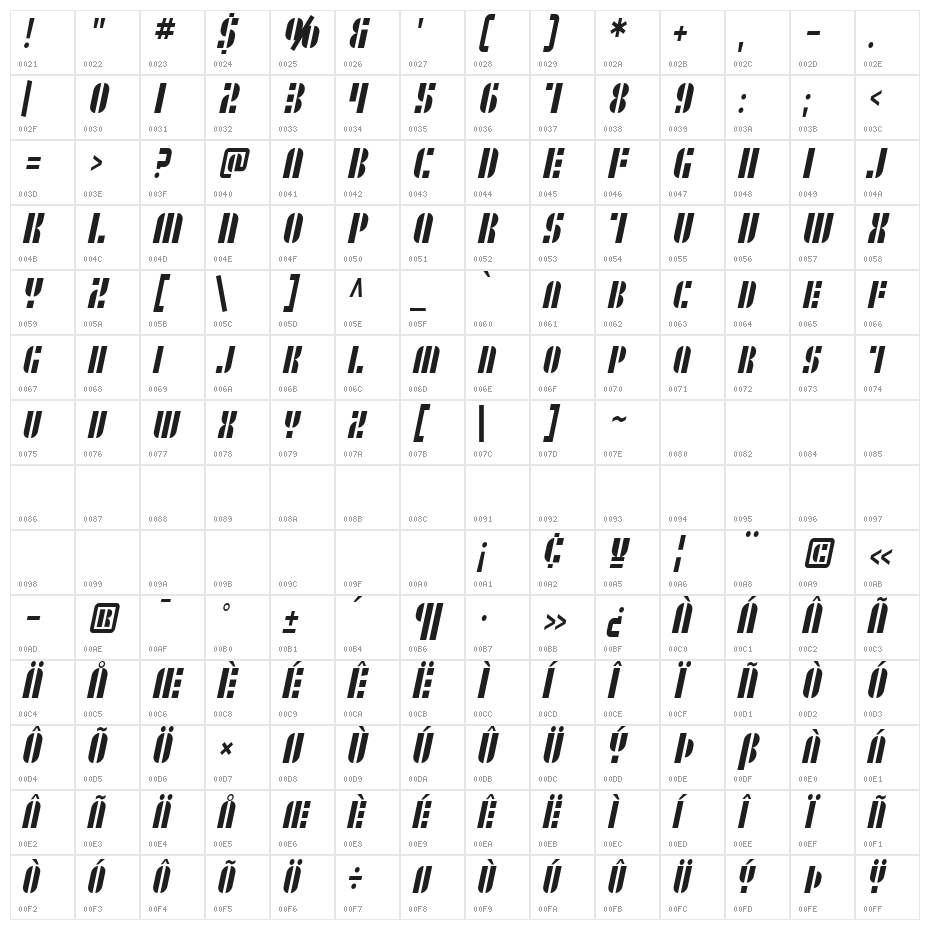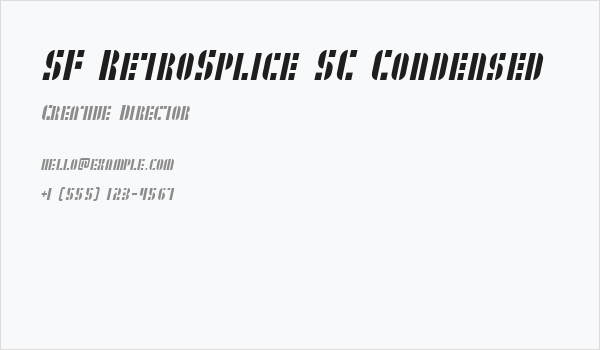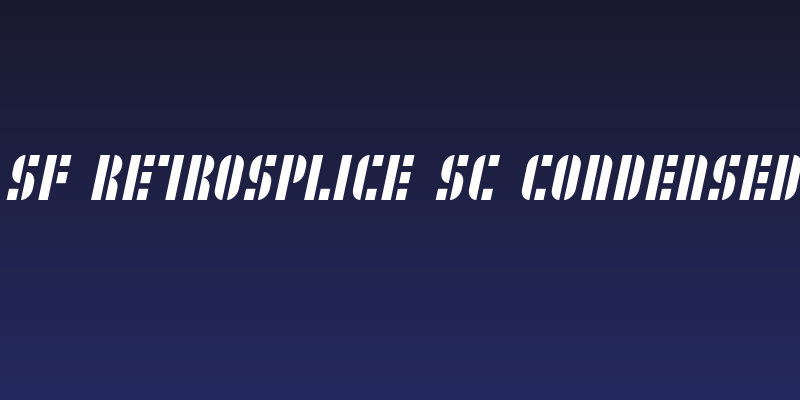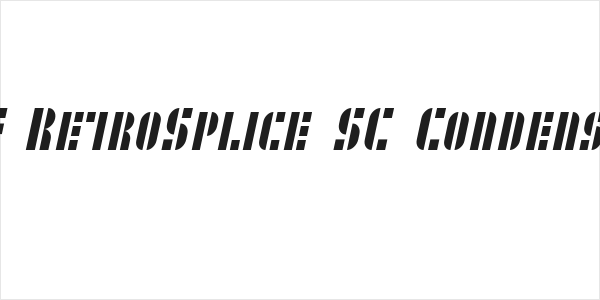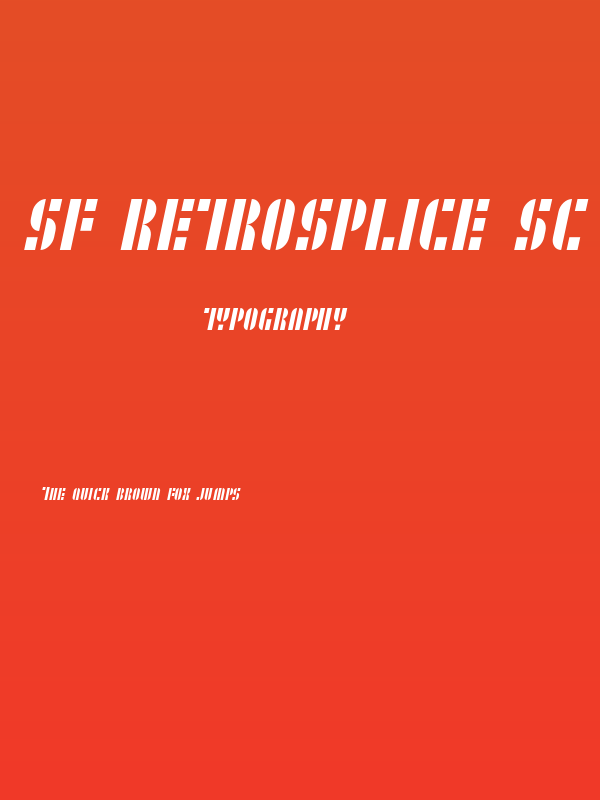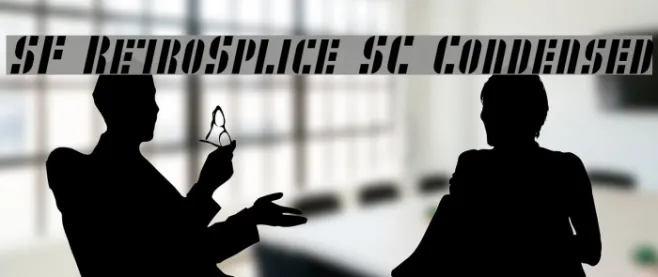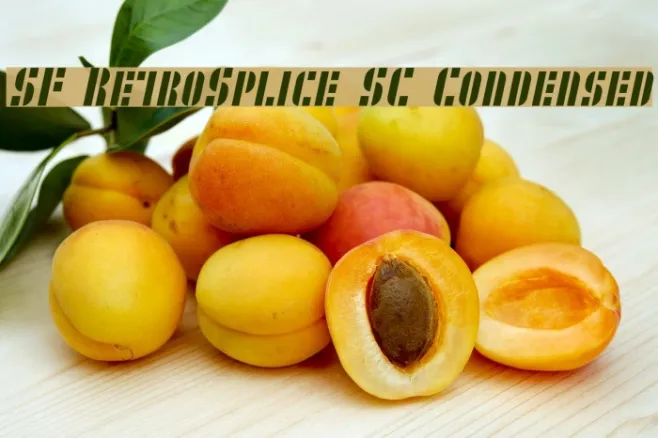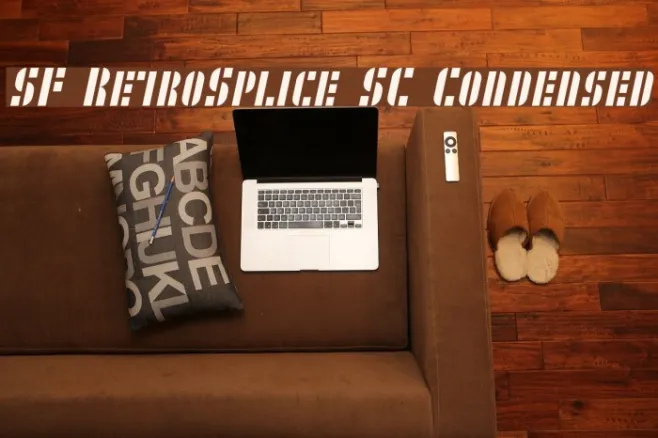
SF RetroSplice SC Condensed Font
SF RetroSplice SC Condensed Description
This font features a bold, condensed style with a distinct retro flair. The characters are designed with sharp, angular cuts that give them a dynamic and energetic appearance. The uppercase and lowercase letters maintain a consistent height, enhancing the uniformity and compactness of the typeface. The numbers and special characters follow the same stylistic approach, ensuring a cohesive look across all elements. This font's unique design makes it stand out, capturing attention with its striking visual impact.
| Overall Style | Retro |
| Proposed Projects | Ideal for vintage-themed posters, retro branding, and eye-catching headlines. |